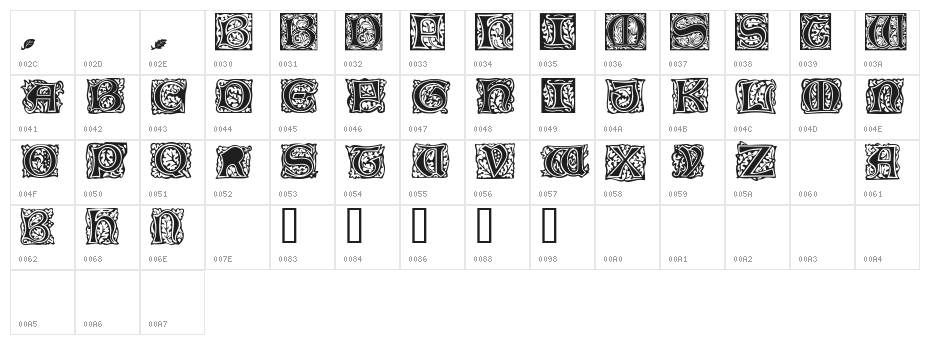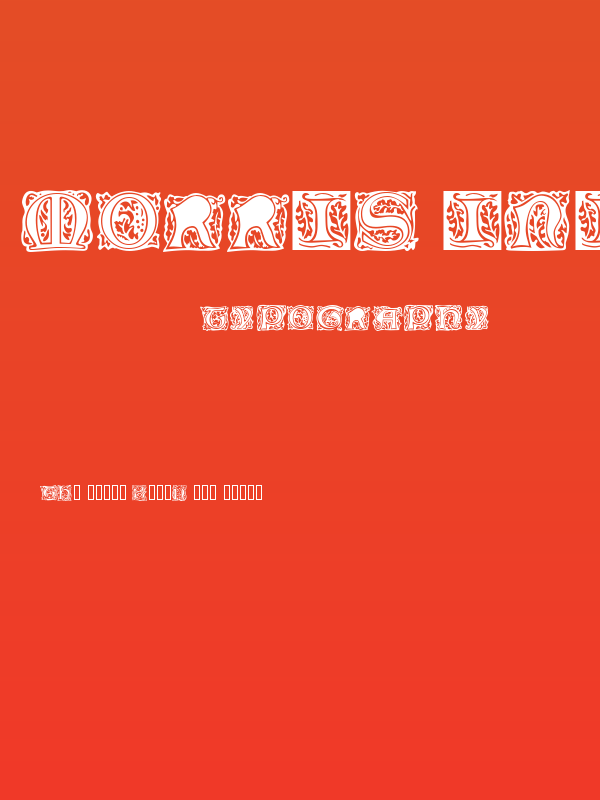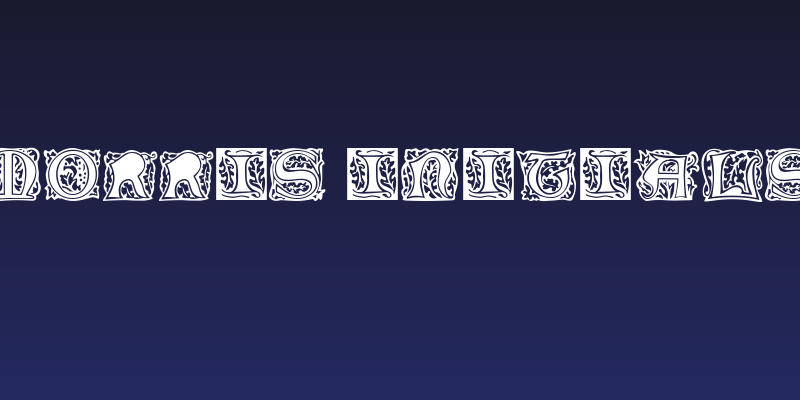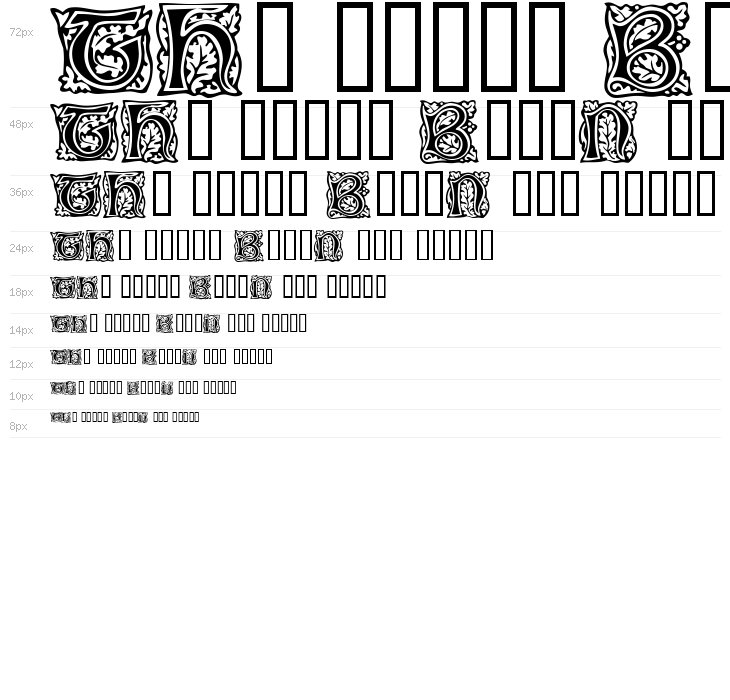
Morris Initials Font
Morris Initials Description
This font is a highly decorative and ornate typeface, characterized by intricate floral and vine motifs that embellish each letter. The uppercase letters are particularly elaborate, with each character enclosed in a square frame filled with detailed botanical designs. The style is reminiscent of medieval manuscript illumination, offering a sense of historical elegance and artistic craftsmanship. The font's complexity and decorative nature make it ideal for projects that require a touch of sophistication and artistry. Its unique appearance is best suited for display purposes where the intricate details can be appreciated.
| Proposed Projects | Perfect for wedding invitations, book covers, historical themed projects, and artistic posters. |